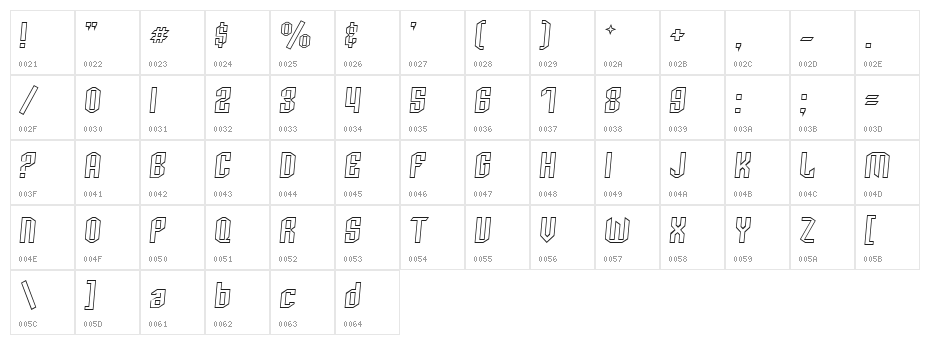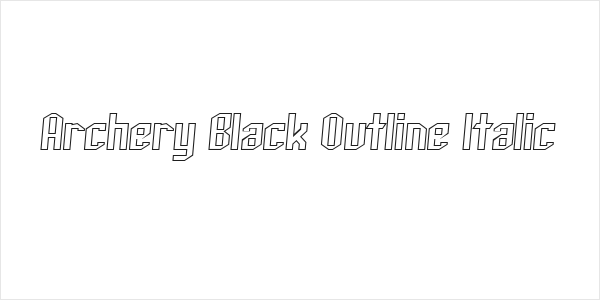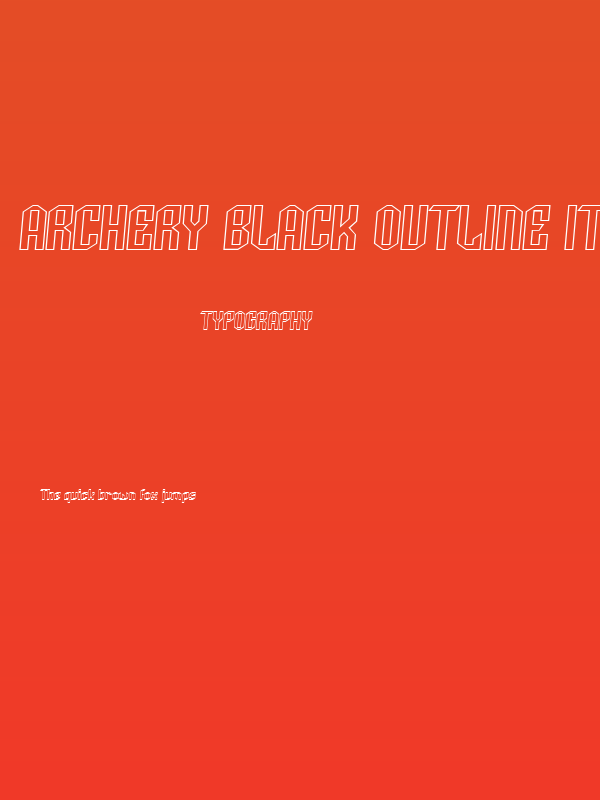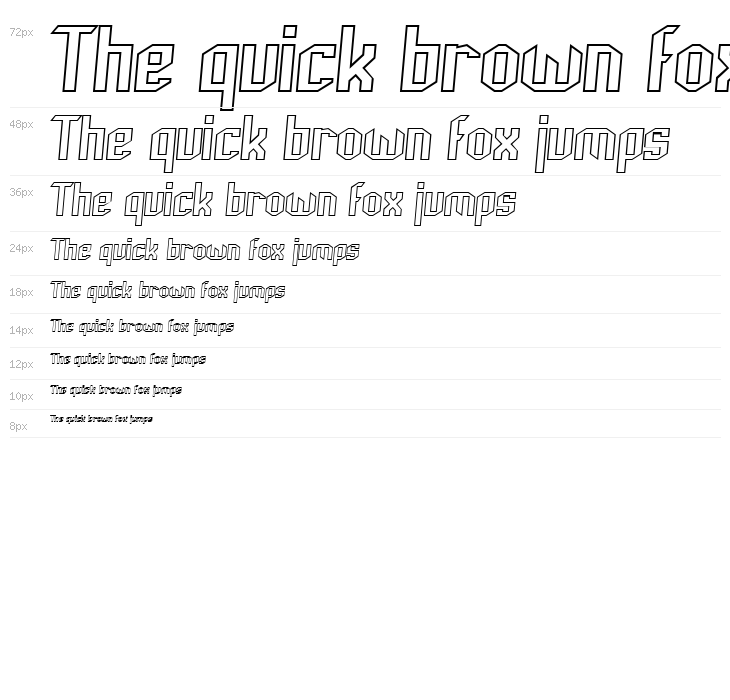
Archery Black Outline Italic Font
Archery Black Outline Italic Description
This font features a bold, geometric design with a distinct outline style. The characters are italicized, giving them a dynamic and forward-leaning appearance. The uppercase and lowercase letters maintain a consistent angular structure, creating a cohesive look. The numbers and special characters follow the same design principles, ensuring uniformity across all glyphs. The outline effect adds a layer of depth, making the font stand out, while the italic slant enhances its modern and energetic feel. This font is ideal for projects that require a strong visual impact.
| Proposed Projects | Suitable for branding, posters, headlines, and any design needing a bold statement. |